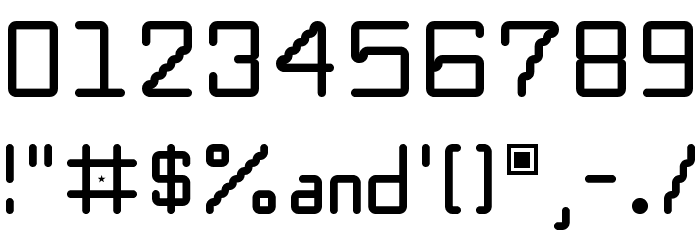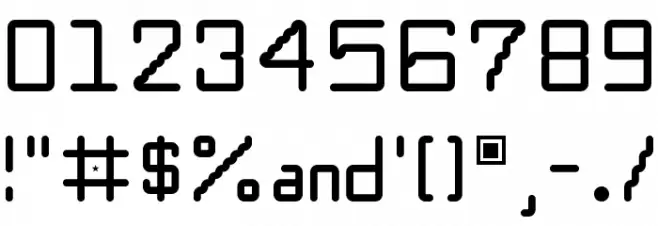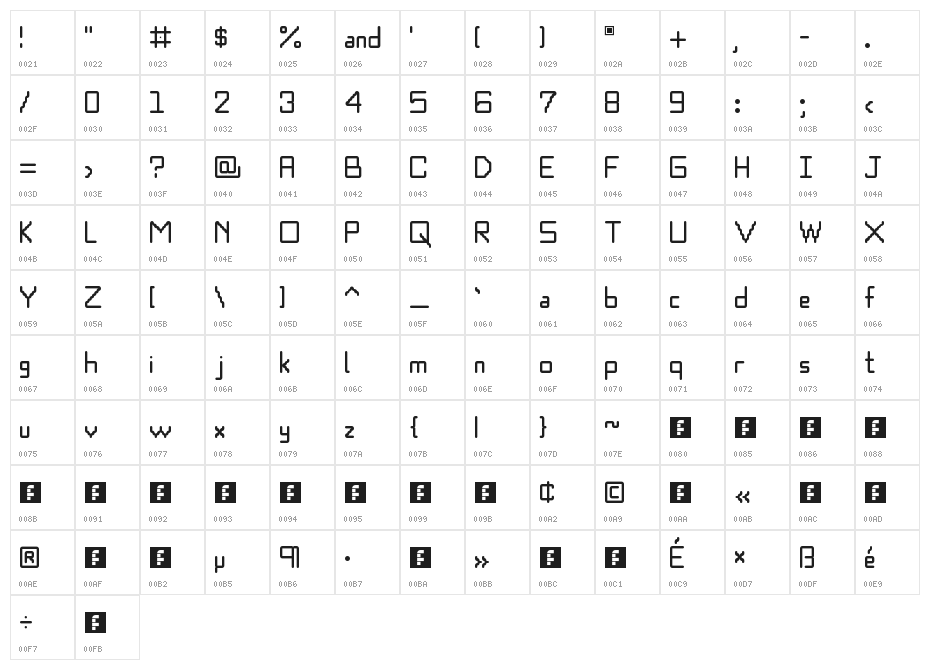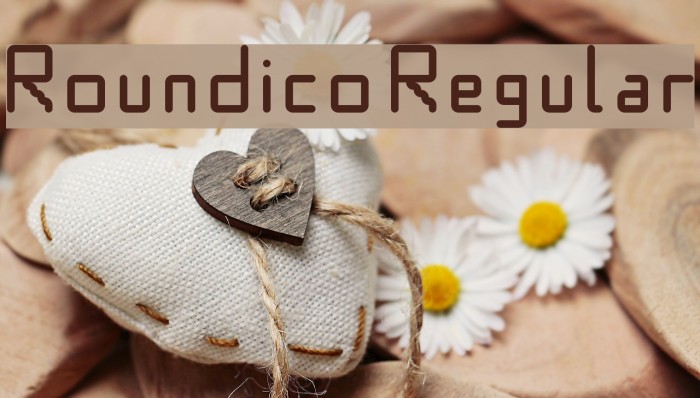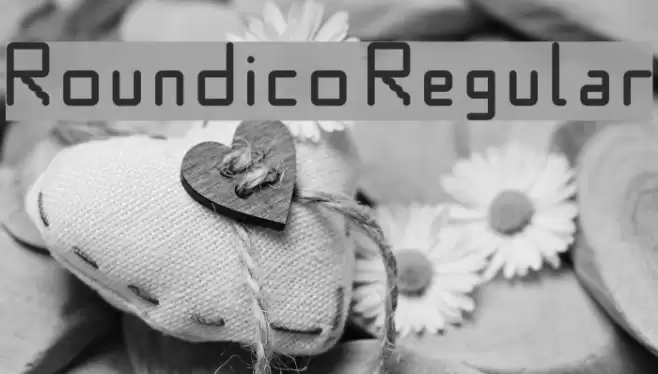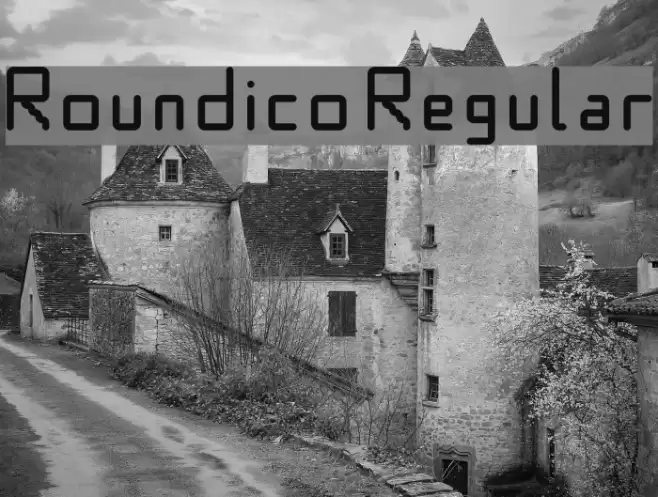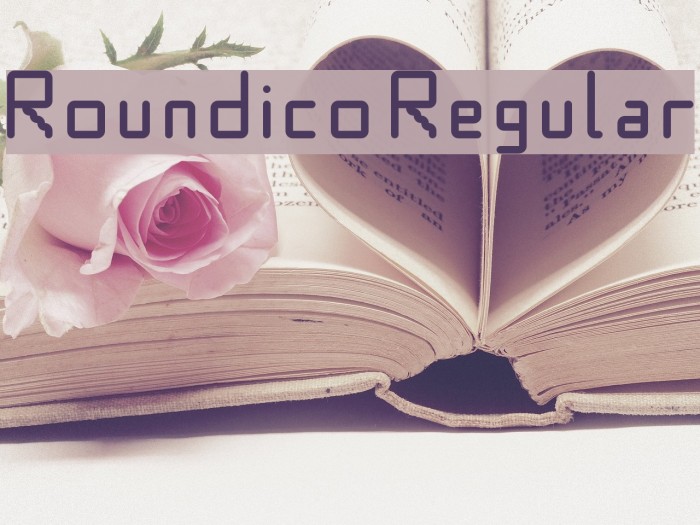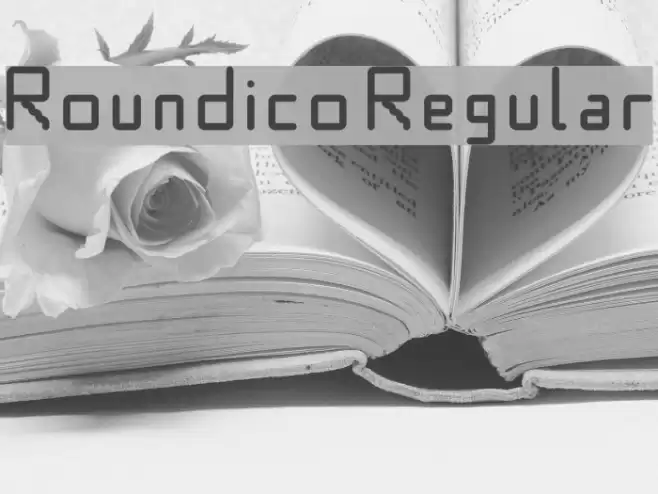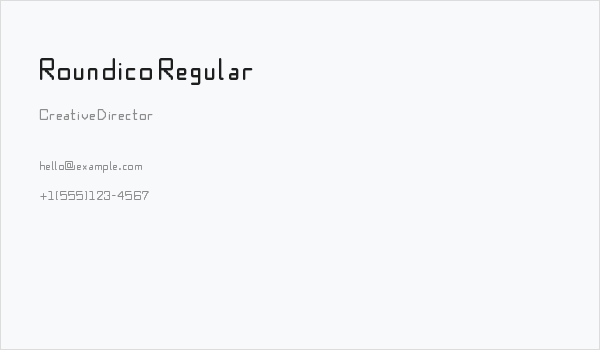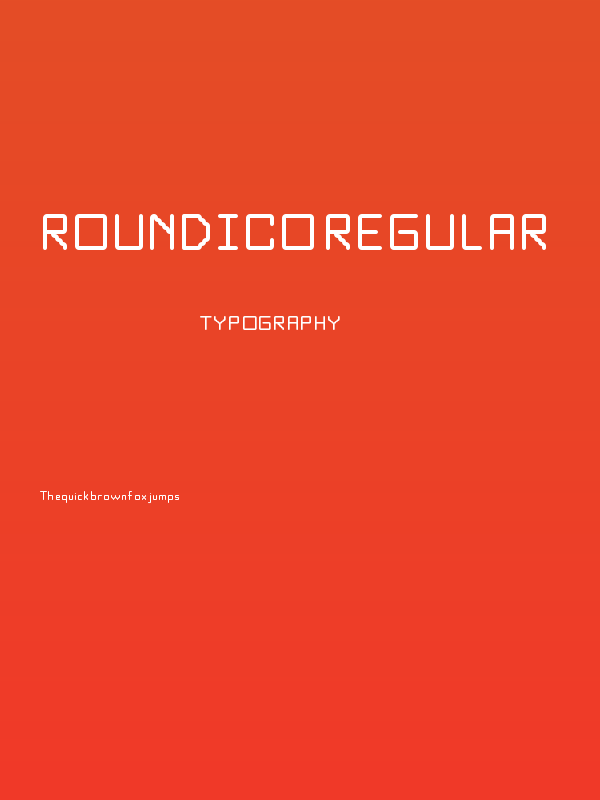
Roundico Regular Font
Roundico Regular Description
This font features a modern, geometric style with rounded edges that give it a friendly and approachable appearance. The characters are uniformly constructed with consistent stroke widths, creating a harmonious and balanced look. The uppercase and lowercase letters maintain a similar width, enhancing readability and uniformity. The numerals and special characters are designed to match the overall aesthetic, ensuring a cohesive visual experience. Its clean and minimalistic design makes it suitable for a variety of applications, from digital interfaces to print media.